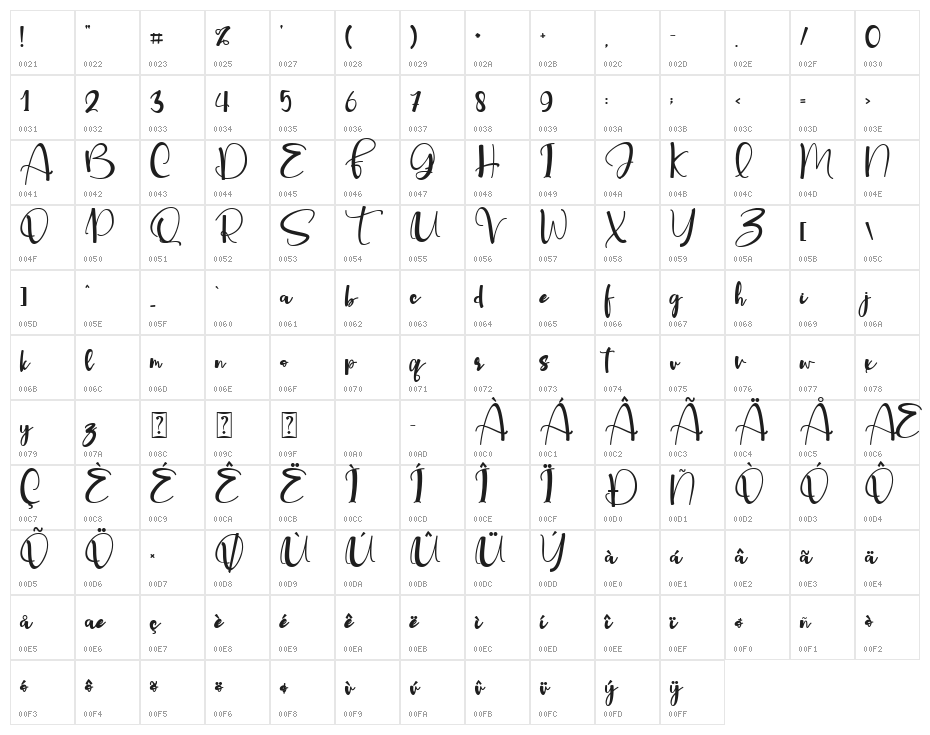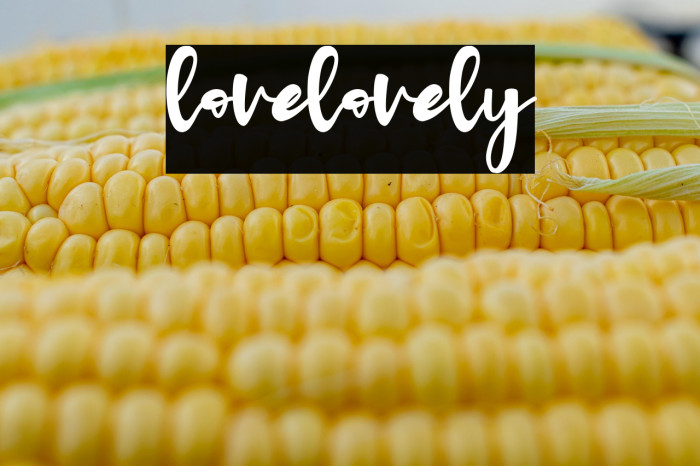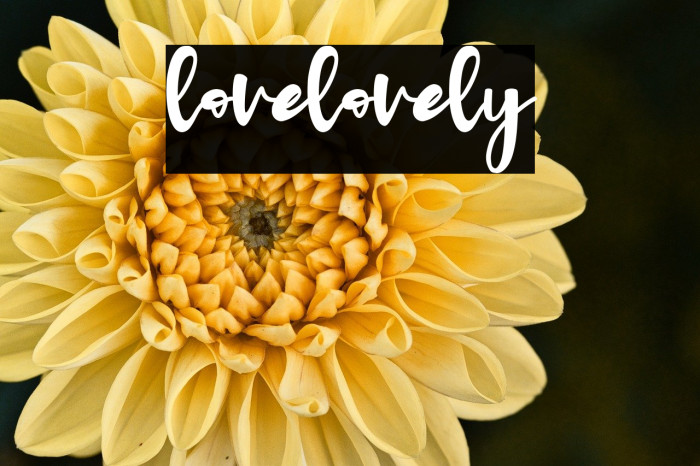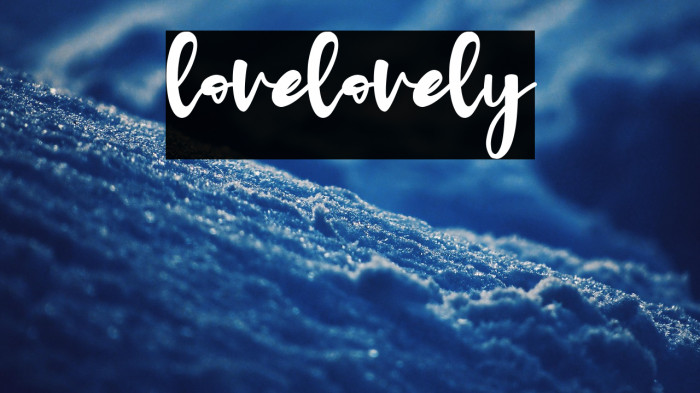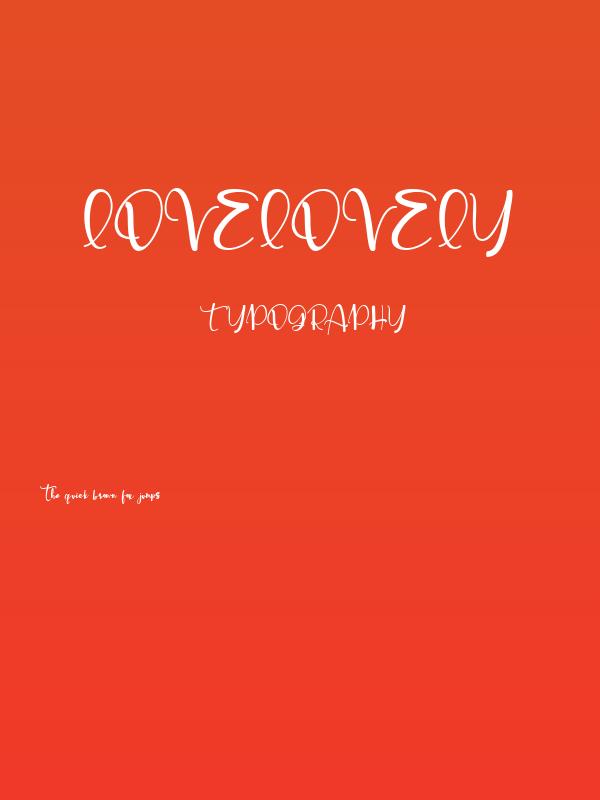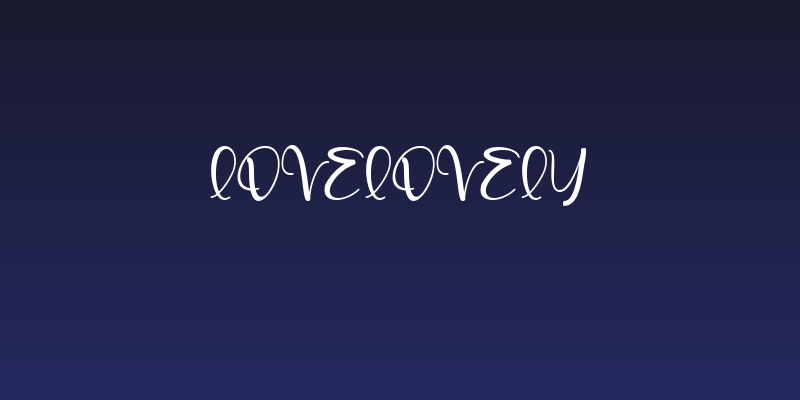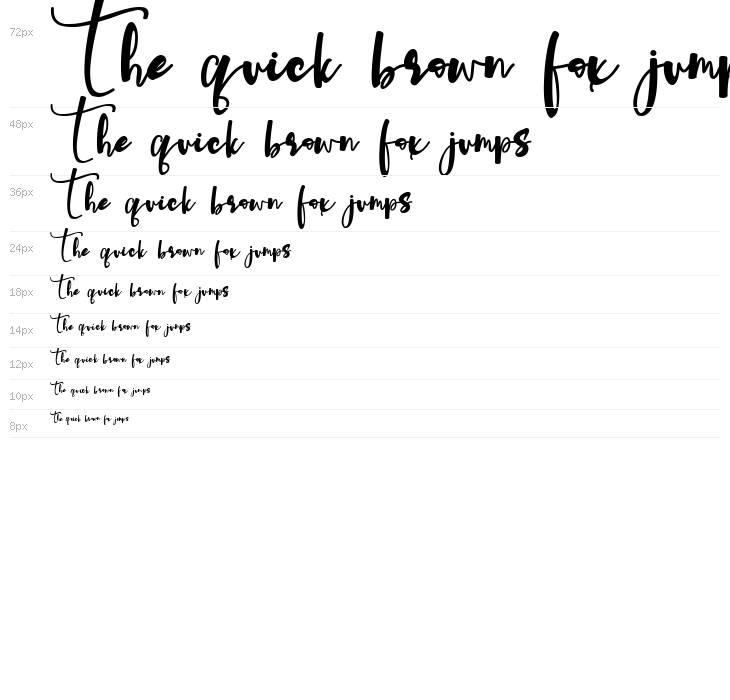
lovelovely Font
lovelovely Description
This font features a playful and elegant script style with a handwritten appearance. The uppercase letters are characterized by smooth, flowing lines and a slight slant, giving them a dynamic and lively feel. The lowercase letters maintain a consistent style, with some letters having unique flourishes that add to the font's charm. The numerals are bold and rounded, complementing the overall aesthetic. Special characters are creatively designed, fitting seamlessly with the rest of the font. The font's overall appearance is both stylish and approachable, making it suitable for a variety of creative projects.
| Proposed Projects | Ideal for wedding invitations, greeting cards, branding, and social media graphics. |